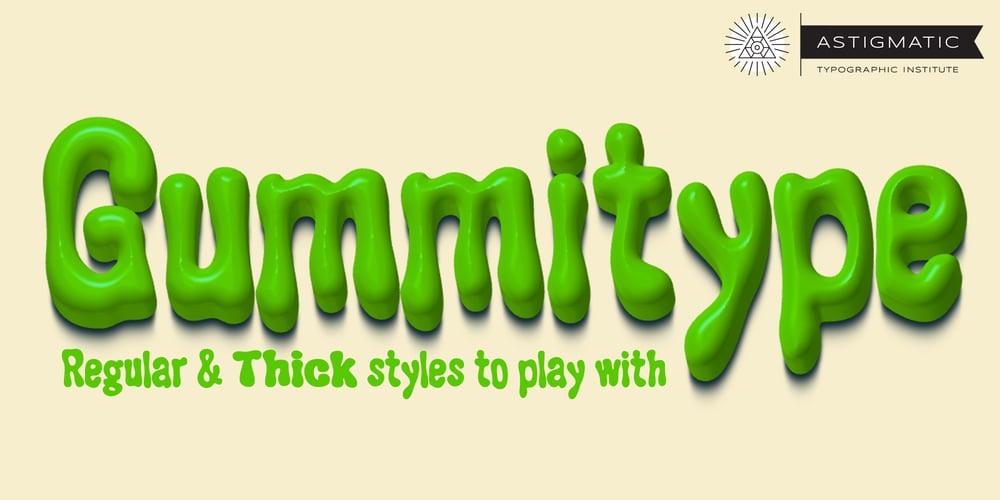
GummiType AOE Font Family was designed by Brian J. Bonislawsky and published by Astigmatic. GummiType AOE contains 2 styles and family package options. GummiType is a wildly wobbly and clumsy gummy/jelly style letter font. This was a weird typeface that I originally designed back in 2000 but never finished it. Coming across it again recently, I thought it would be a fun font family to get out there. Perfect for a range of designs that require a spooky or gooey-gooey typestyle.Sometimes the inspiration for my typefaces comes from random everyday things, and this is the perfect example of that. My daughter is addicted to those little peach gummy rings and gummy worms, and gummy anything, but it was my own prior addiction to gummy peach rings that inspired this font. Pulling and distorting the ring sparked the inspiration for the droopy warped characters.